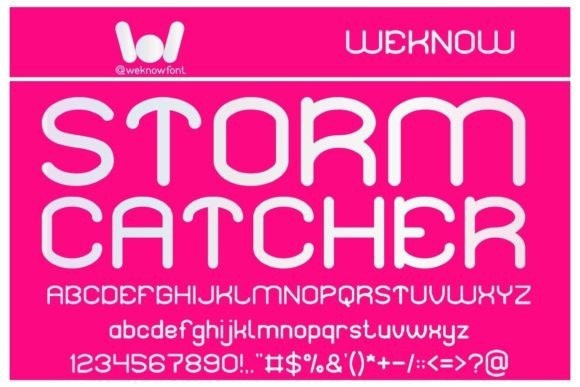
Storm Catcher Typeface
Storm Catcher Typeface is a fancy various themes font, suit for logo, logotype, headline font, in corporate identity, brand identity, apparel industry, poster, music, movie, game, magazine, book, comic, cartoon, YouTube, Instagram, website, or any of your creative design project